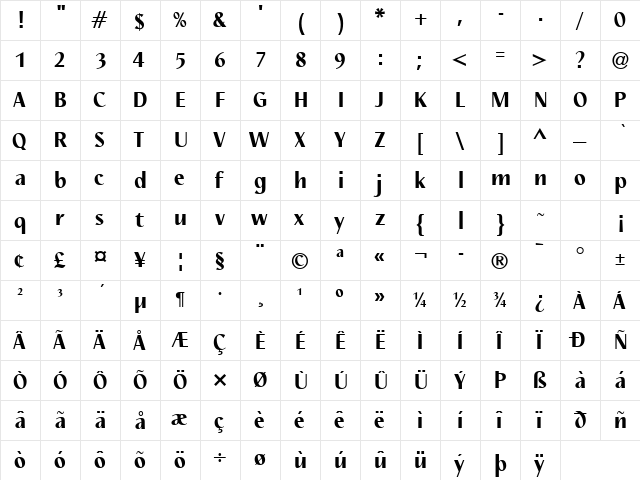
Nautilus LT Medium Bold Font Preview
Nautilus LT Medium Bold
Design Context for Nautilus LT Medium Typeface
Nautilus LT Medium is a composed and adaptable typeface that performs quietly and consistently across a wide range of design contexts. The heavy weight commands attention and anchors typographic hierarchies.